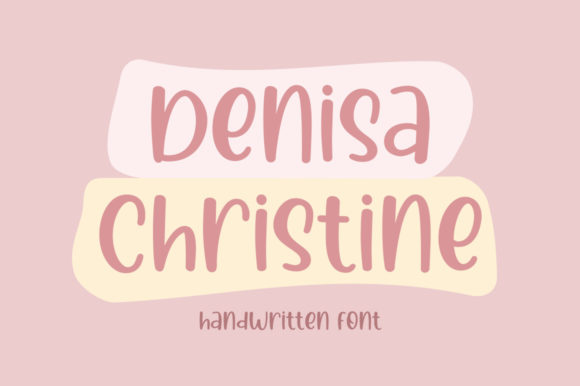
Journey into the world of Denisa Christine, a captivating display font family poised to infuse your designs with a touch of elegance and playfulness. Brimming with charm and versatility, this font seamlessly adapts to a myriad of creative endeavors, from heartfelt invitations to heartfelt thank-you cards, captivating quotes to sincere greeting cards. It's the perfect companion for logos seeking a distinctive identity and business cards yearning for a touch of sophistication.
With Denisa Christine as your trusty font companion, transform your designs into visual masterpieces. Let its graceful strokes and playful curves enchant your audience, leaving an indelible mark on their hearts and minds. Say goodbye to mundane fonts and embrace a world of creative possibilities with Denisa Christine.
Key features that make Denisa Christine an extraordinary font:
1. PUA Encoding: Experience the boundless joy of accessing a treasure trove of glyphs and swashes with effortless ease. Unleash your creativity and let your designs dance with diversity.
2. A Font for All Occasions: Whether you're crafting heartfelt invitations, expressing gratitude with thank-you cards, or sharing wisdom through captivating quotes, Denisa Christine rises to every occasion, adding an enchanting touch to your creations.
3. Masterful Versatility: From greeting cards that warm the heart to logos that leave a lasting impression, business cards that exude professionalism, and every design in between, Denisa Christine is your ultimate font partner, effortlessly adapting to your diverse creative needs.
Embrace the magic of Denisa Christine today, and let this captivating font family ignite your creativity and transform your designs into works of art. Step into a world of endless possibilities and make your mark with Denisa Christine, the font that speaks to your heart.